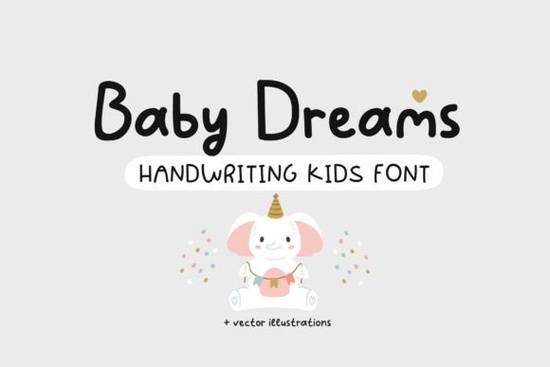
If you’re designing for little ones or celebrating them Baby Dreams Font brings just the right amount of charm. It’s soft, playful, and full of personality without being overwhelming. Whether you’re making baby shower invites, nursery wall art, or personalized onesies, this font fits naturally into projects that call for warmth and whimsy.
What makes it especially handy is how well it pairs with both modern and boho-inspired aesthetics. You’ll find it works just as nicely on a hand-lettered storybook page as it does on a minimalist wooden toy tag. And yes it includes Cyrillic characters, which opens up more possibilities if you’re creating for multilingual families or global markets.
What kinds of projects is Baby Dreams Font best for?
This font was clearly made with joy in mind. Here are some real-life uses where it shines:
- Baby shower stationery – Invitations, thank-you cards, favor tags
- Nursery decor – Wall prints, growth charts, name plaques
- Kids’ apparel – Onesies, bibs, toddler tees with sweet sayings
- Children’s books – Especially picture books or early readers
- Greeting cards – For new parents, birthdays, or “just because” moments
- Toys & packaging – Wooden blocks, fabric dolls, gift boxes
It’s not overly ornate, so it stays readable even at smaller sizes. That’s a big plus when you’re printing on fabric or working with tight layouts.
How does it compare to other script fonts for kids?
Not all cute fonts are created equal. Some feel too stiff; others are so swirly they become hard to read. Baby Dreams strikes a nice balance it’s friendly without being childish, and decorative without losing clarity.
If you’ve used Nostalgic Words before, you’ll notice Baby Dreams has a lighter, airier feel. Where Nostalgic Words leans vintage, Baby Dreams feels fresh and contemporary. For something more romantic or wedding-focused, Romeo Wedding might be your go-to but that’s not what you want for a onesie or a board book.
And if you’re pairing fonts? Try combining Baby Dreams with a clean sans-serif for contrast. Or layer it with Country Last Night Duo if you’re going for that cozy, handmade vibe. Even Welcome Font can work as a bold header companion when you need something eye-catching but still sweet.
Does it support special characters or languages?
Beyond standard Latin letters, numbers, and punctuation, Baby Dreams includes the full Cyrillic alphabet. That’s helpful if you’re designing for Russian, Ukrainian, Bulgarian, or Serbian-speaking audiences or even just want to offer bilingual baby announcements. No extra downloads or font switching needed.
Any tips for getting the most out of this font?
A few practical ideas to make your designs pop:
- Use sparingly for impact. A whole paragraph in Baby Dreams can feel busy. Reserve it for names, short phrases, or titles.
- Play with color. Soft pastels enhance its gentle vibe. Try mint, blush, or butter yellow.
- Add texture. Pair it with watercolor backgrounds, linen textures, or subtle grain overlays to keep things organic.
- Layer with icons. Tiny stars, clouds, or animals next to the text reinforce the baby/kid theme without needing more words.
One thing to note: while it’s great for headlines and accents, avoid using it for body text in longer documents. Legibility matters, especially for parents reading bedtime stories or instructions on baby gear.
Where else might I use this beyond baby stuff?
Don’t box it in. This font also works beautifully for:
- Pet-themed designs (think “fur baby” merch)
- Whimsical quotes or affirmations
- Spring or Easter crafts
- Teacher appreciation gifts
- Playroom or daycare signage
Its cheerful bounce translates well to anything that needs a touch of innocence or lightheartedness.
Whether you’re crafting for your own little one or building a product line for new parents, Baby Dreams Font is a reliable, joyful tool to have in your design kit.